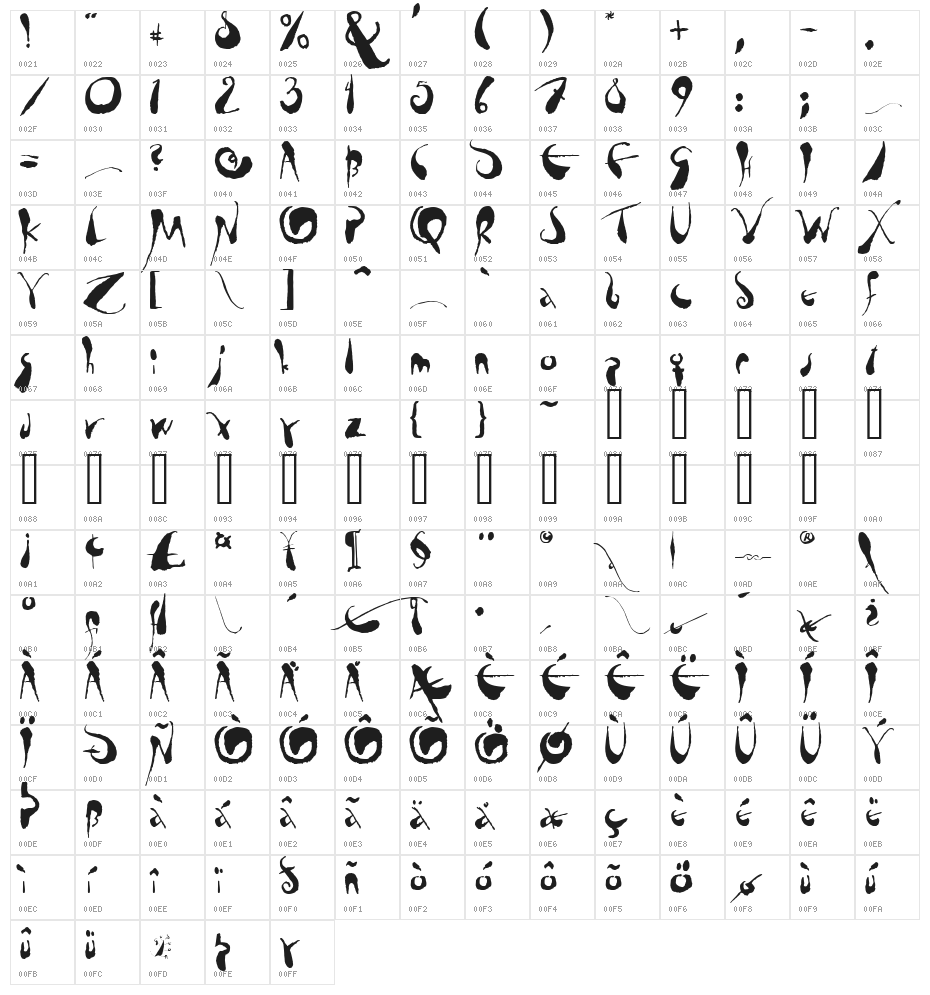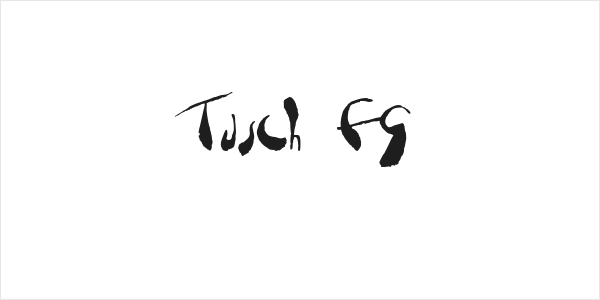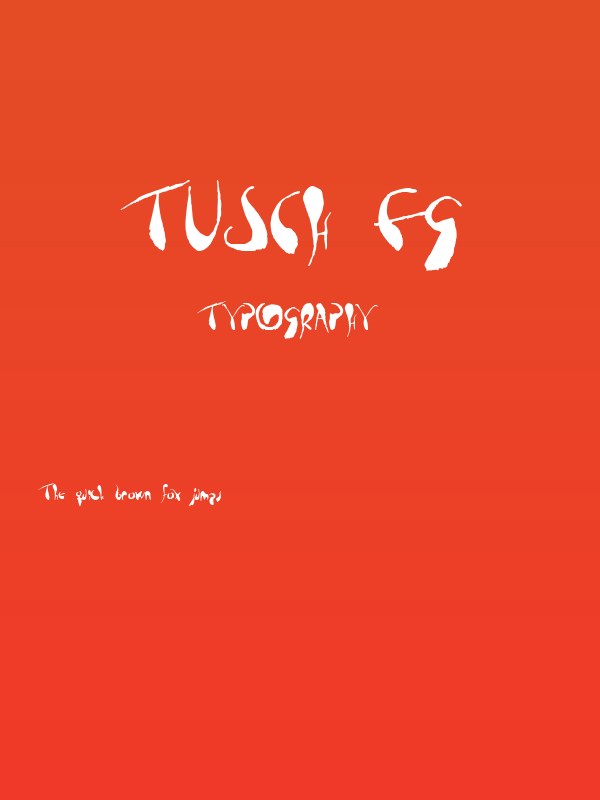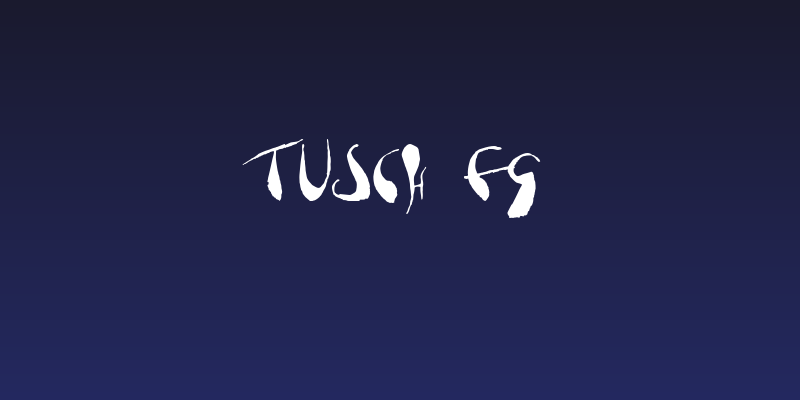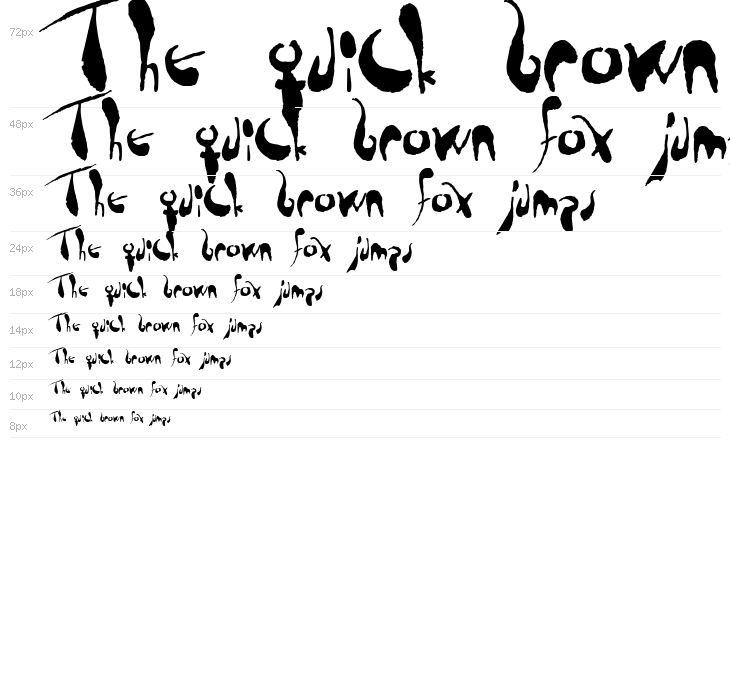
Tusch FG Font
Tusch FG Description
This font features a highly expressive and artistic style, characterized by its bold, brush-like strokes and dynamic forms. The letters have an organic, hand-drawn appearance with varying thicknesses that create a sense of movement and energy. The uppercase and lowercase letters share a cohesive design, with exaggerated curves and unique shapes that make each character stand out. The numbers and special characters maintain this artistic flair, contributing to the overall aesthetic. This font is ideal for projects that require a creative and unconventional touch.
| Overall Style | Artistic, Expressive |
| Use Case | Logos, Posters, Album covers, Creative branding |
| Proposed Projects | Ideal for artistic projects, creative branding, posters, album covers, and any design requiring a unique, hand-drawn look. |